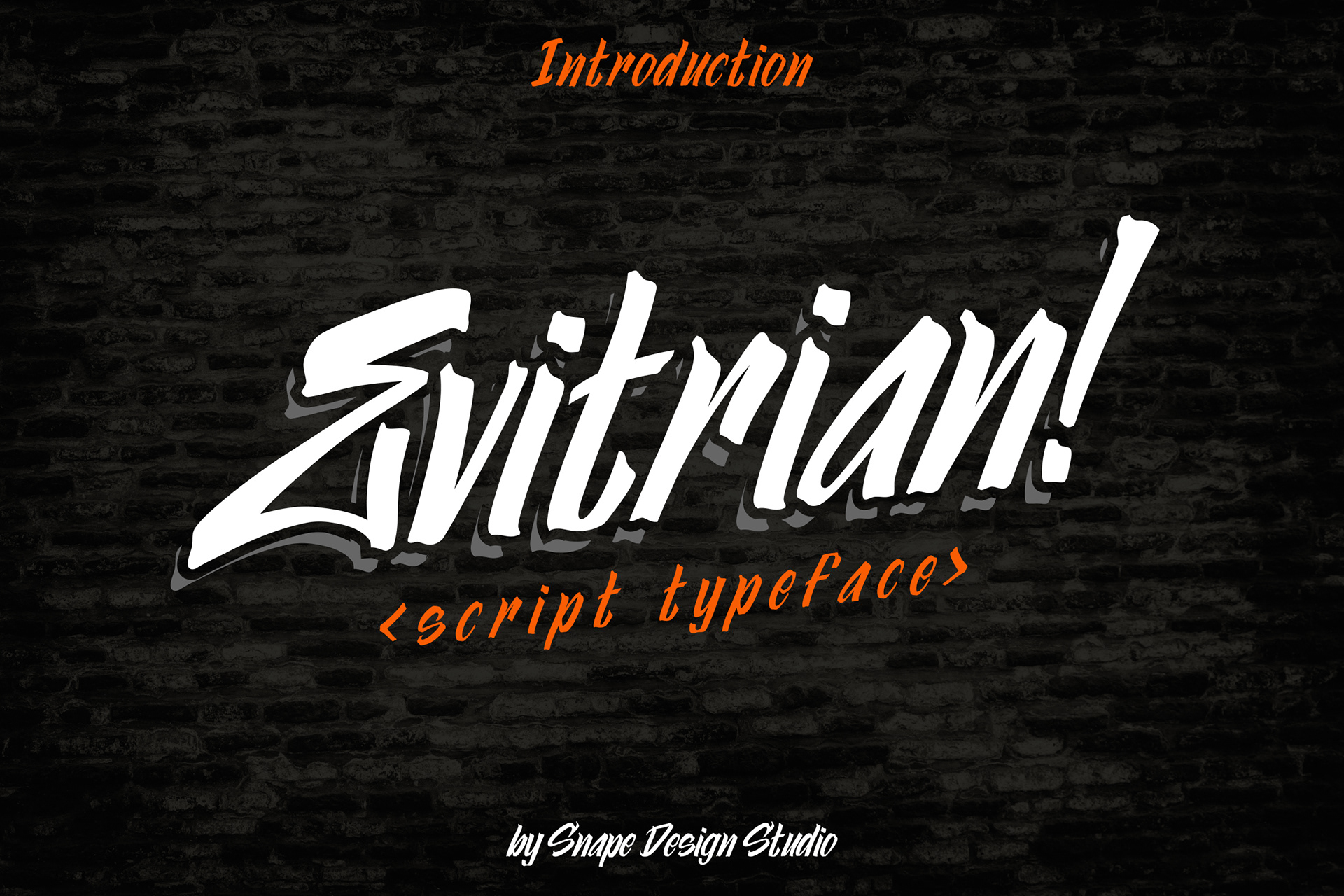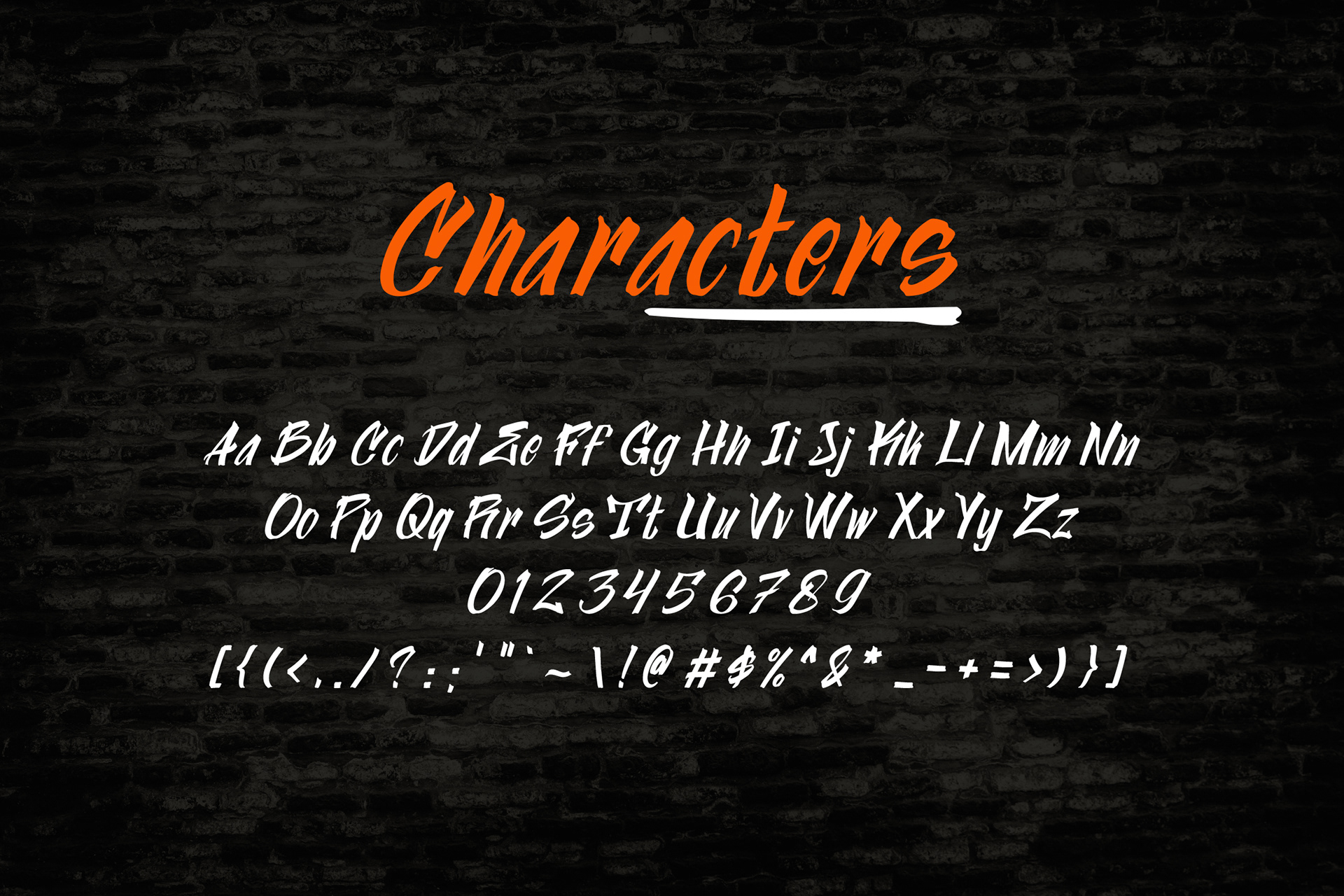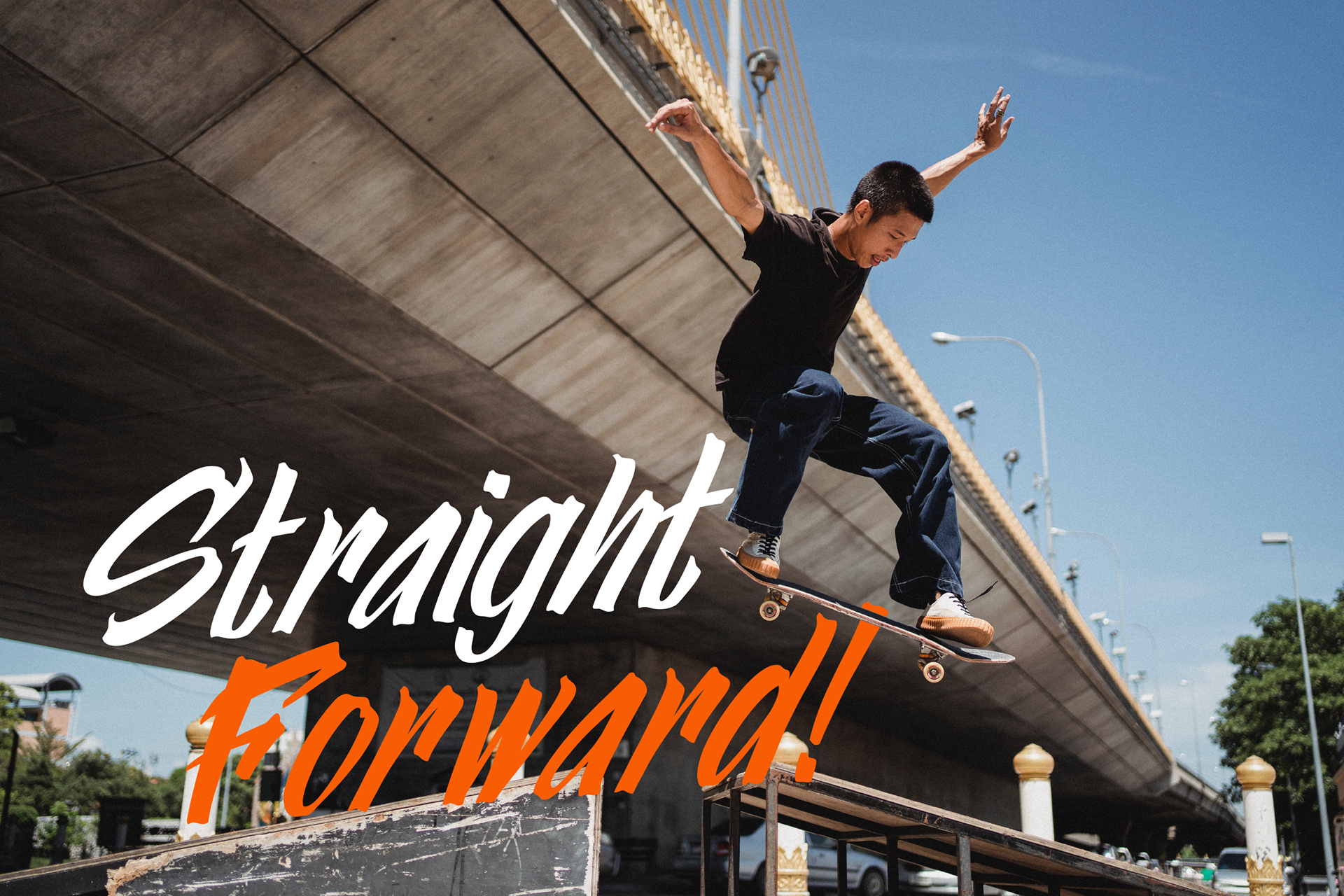
Evitrian is a strong, urban styled display font. Incredibly modern and unique, this font will make each of your designs stand out!. Suitable for movie, documenter, film, logo, poster, game, book cover, headlines, title and many more projects. Add this font to your creative ideas and notice how it will make them stand out!
Evitrian - Urban Style Font design by Ario Sabrang Damar publish under Snape Design Studio